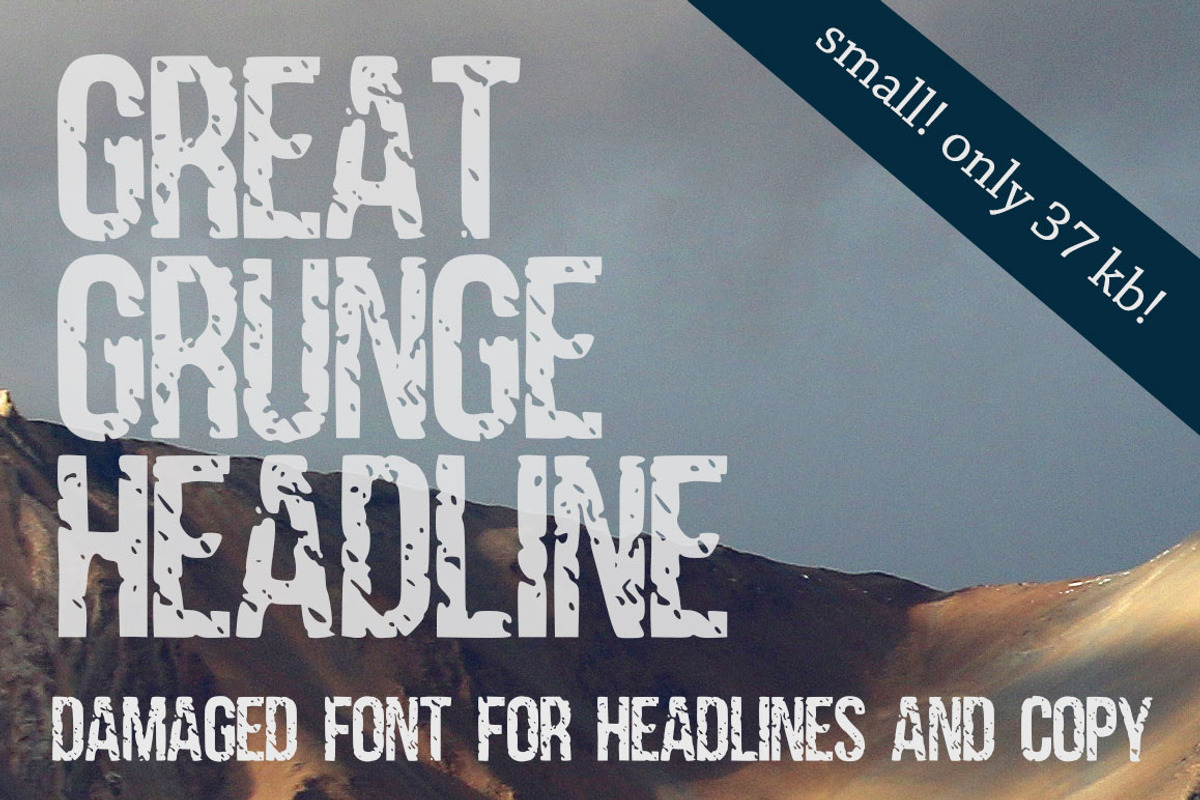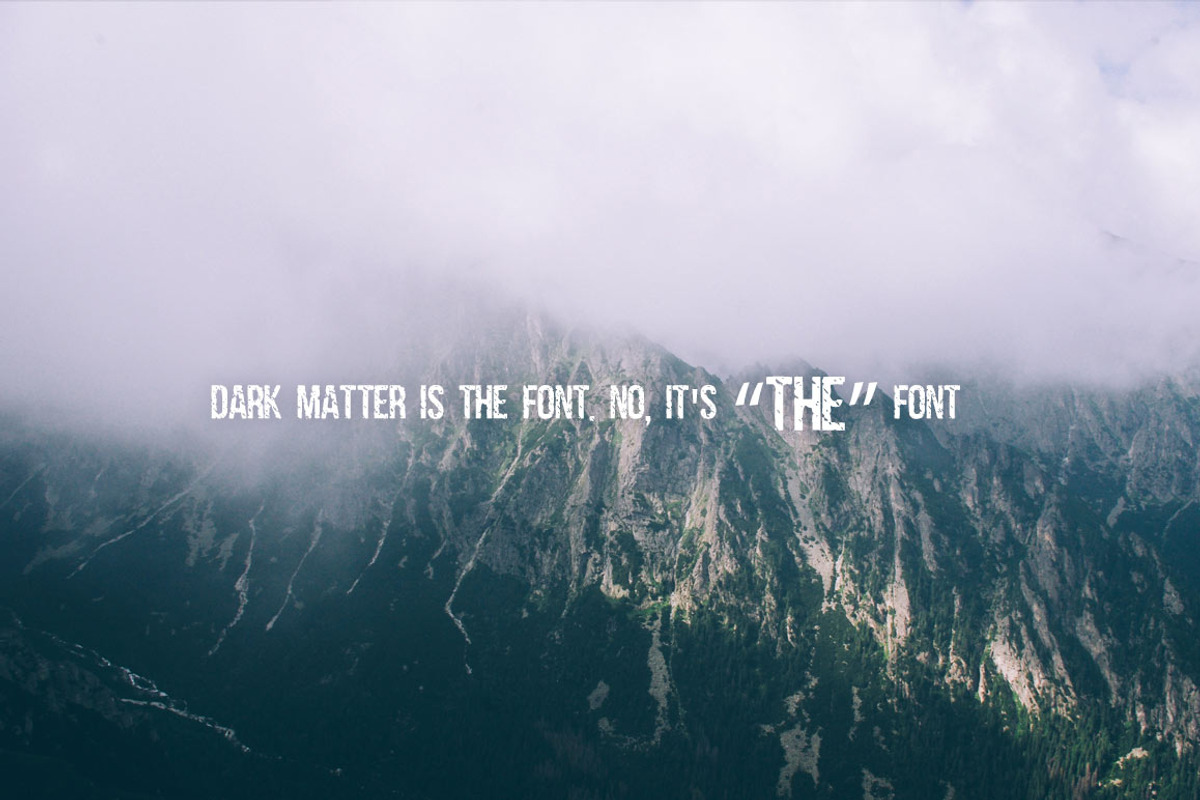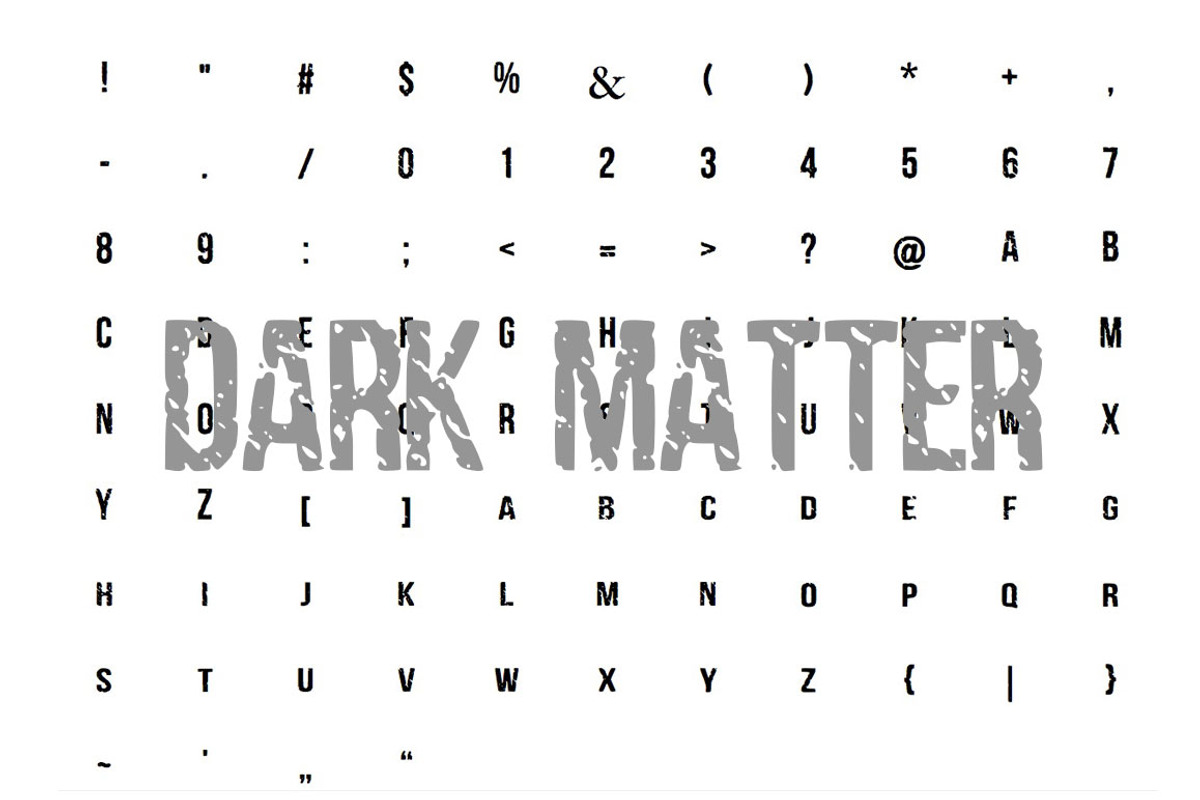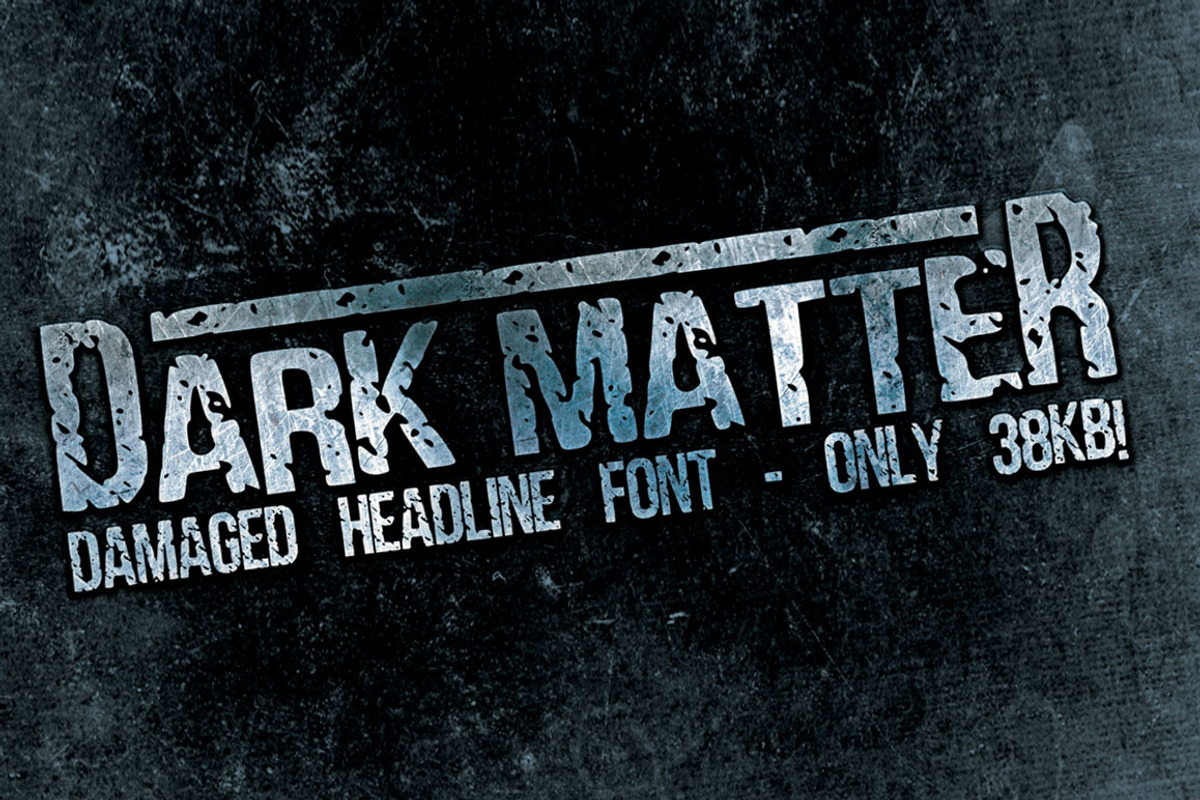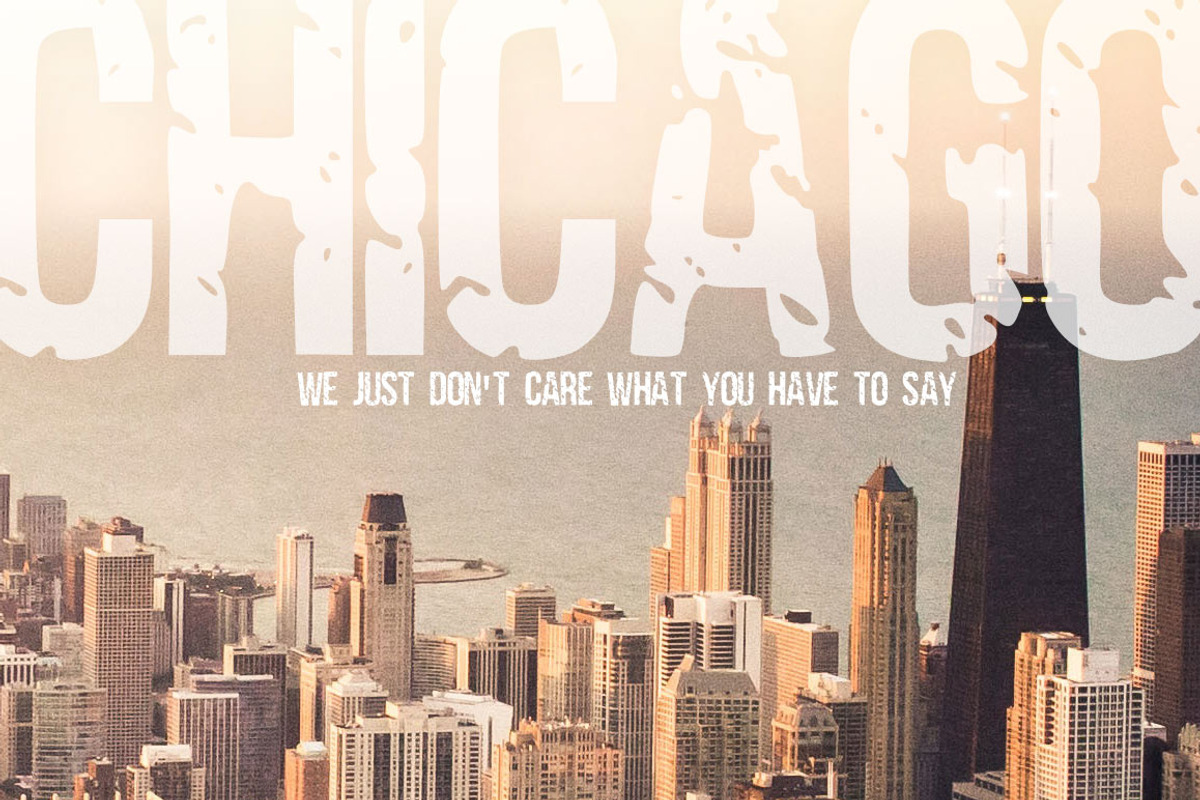
Distressed Condensed Font DarkMatter
Distressed Condensed Font DarkMatter by the little wonder shop is a font selected for branding, posters, packaging, typography.
Why Distressed Condensed Font DarkMatter is worth a look
Distressed Condensed Font DarkMatter by the little wonder shop fits naturally into Branding, posters, packaging, typography.